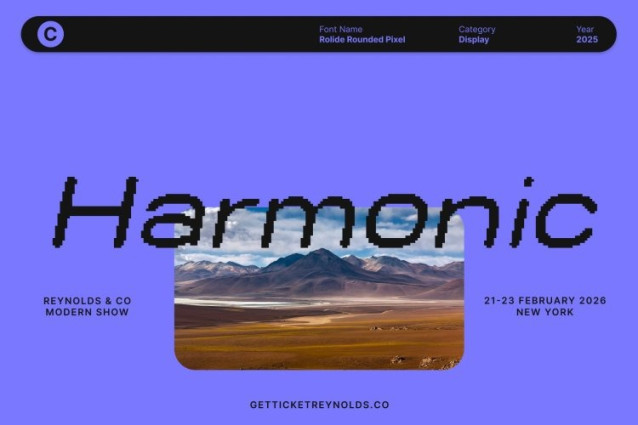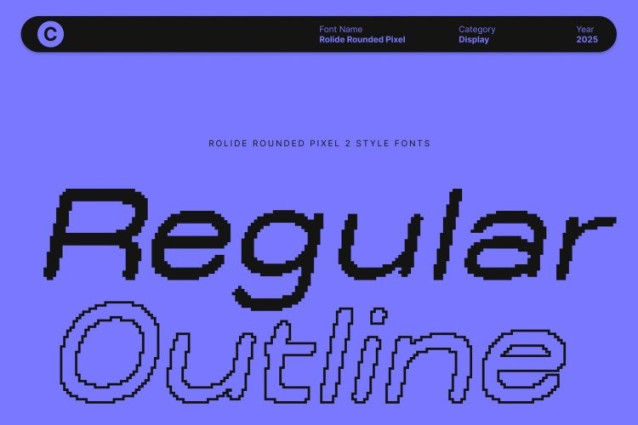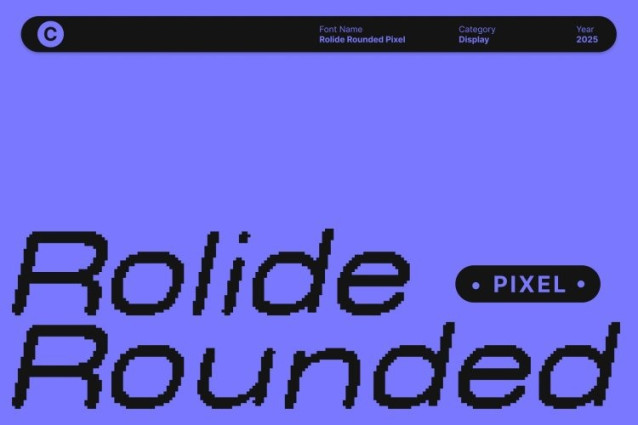
Rolide Rounded Pixel Font This is an expanded sans serif font designed with wide proportions that immediately create a modern presence. Its spacious letterforms enhance visibility and deliver a confident typographic style, making it ideal for layouts that demand clarity and visual impact.
Pixel Aesthetic for Retro-Digital Appeal
Blending a modern sans serif foundation with pixel-inspired detailing, this font brings nostalgic digital flair into contemporary design. The subtle pixel texture adds character without overwhelming the clean structure, evoking classic arcade visuals while staying refined and relevant for today’s digital aesthetics.
Modern Versatility for Creative Projects
This font delivers flexibility across a wide range of creative applications. Its expanded form suits branding that aims to appear modern and confident, while its pixel accenting enhances designs with a retro-tech or digital feel. Whether used in gaming interfaces, web visuals, posters, or digital advertisements, this font adapts effortlessly while maintaining strong stylistic identity.
Ideal for Digital Branding & Classic Retro Themes
Perfect for digital branding, nostalgic campaigns, or modern-retro styling, this font balances contemporary strength with pixel-era charm. Designers can rely on its wide stance to create powerful headlines, eye-catching logos, or dynamic display typography.